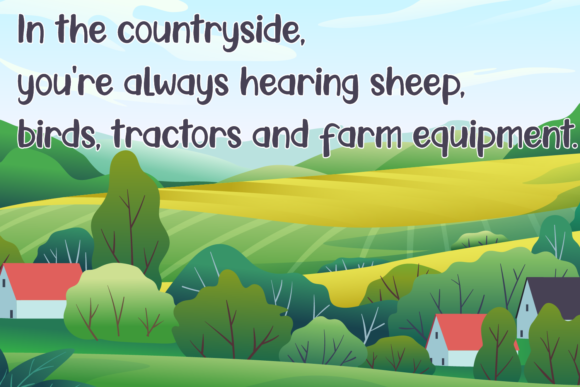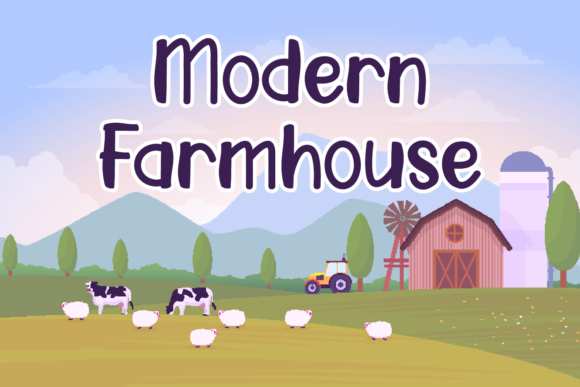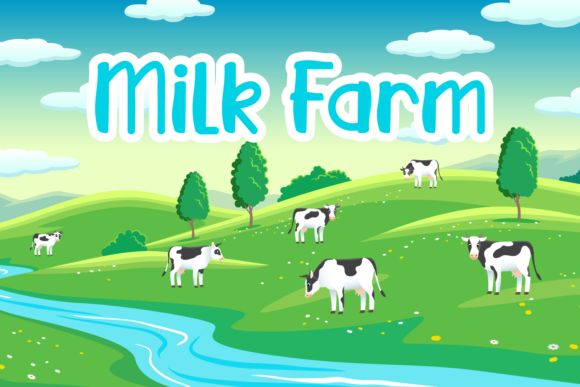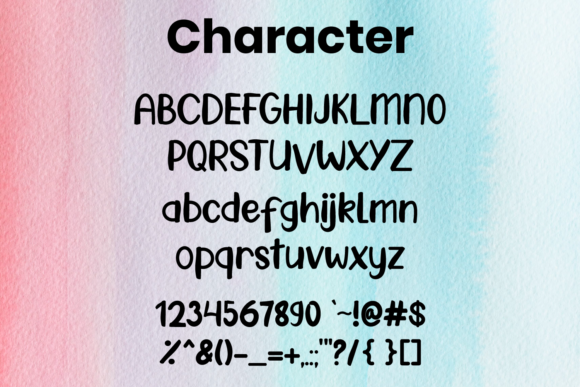
Introducing Farmhouse Designer Font: Elevate Your Design Projects with a Fresh and Unique Style
Are you a designer or crafter looking for a font that can add a touch of simplicity, freshness, and neatness to your design projects? Look no further than the Farmhouse Designer Font. This lettered display font is perfect for anyone who wants to create stunning designs that stand out from the crowd. With its unique characters and clean lines, Farmhouse Designer Font is sure to become a favorite in your design arsenal.
What Makes Farmhouse Designer Font Special?
Farmhouse Designer Font is a simple, yet elegant font that is perfect for a wide range of design projects. Whether you’re creating a logo, branding materials, or social media graphics, this font is sure to impress. Its unique characters and neat lines make it easy to read and understand, while its fresh and modern style ensures that your designs will look contemporary and stylish.
One of the best things about Farmhouse Designer Font is its versatility. It can be used for both personal and commercial projects, and it’s perfect for a wide range of design applications, including:
- Invitations and party decorations
- Signs and banners
Key Features of Farmhouse Designer Font
So, what makes Farmhouse Designer Font so special? Here are just a few of its key features:
- Simple and clean lines: Farmhouse Designer Font has a simple and clean design that makes it easy to read and understand.
- Unique characters: This font has unique characters that will add a touch of personality to your designs.
- Fresh and modern style: Farmhouse Designer Font has a fresh and modern style that will make your designs look contemporary and stylish.
- Versatile: This font can be used for a wide range of design applications, from logos and branding materials to social media graphics and more.
Why Choose Farmhouse Designer Font?
There are many fonts to choose from, but Farmhouse Designer Font stands out from the crowd. Here are just a few reasons why you should choose this font for your design projects:
- Easy to read: Farmhouse Designer Font is easy to read, even at small sizes.
- Highly versatile: This font can be used for a wide range of design applications.
- Unique and stylish: Farmhouse Designer Font has a unique and stylish design that will add a touch of personality to your designs.
- Supports multiple languages: This font supports multiple languages, making it perfect for designers who work with clients from around the world.
Tips and Tricks for Getting the Most Out of Farmhouse Designer Font
Here are a few tips and tricks for getting the most out of Farmhouse Designer Font:
- Experiment with different sizes and colors: Farmhouse Designer Font looks great at a wide range of sizes and colors. Experiment with different combinations to find the one that works best for your design.
- Pair it with other fonts: Farmhouse Designer Font pairs well with other fonts. Try pairing it with a bold font for a striking contrast.
- Use it consistently: Use Farmhouse Designer Font consistently throughout your design to create a cohesive look.
Farmhouse Designer Font is a simple, fresh, and neat lettered display font that is perfect for designers and crafters who want to create stunning designs. With its unique characters and clean lines, this font is sure to become a favorite in your design arsenal. Whether you’re creating logos, branding materials, or social media graphics, Farmhouse Designer Font is the perfect choice. So why wait? Download Farmhouse Designer Font today and start creating stunning designs that stand out from the crowd.